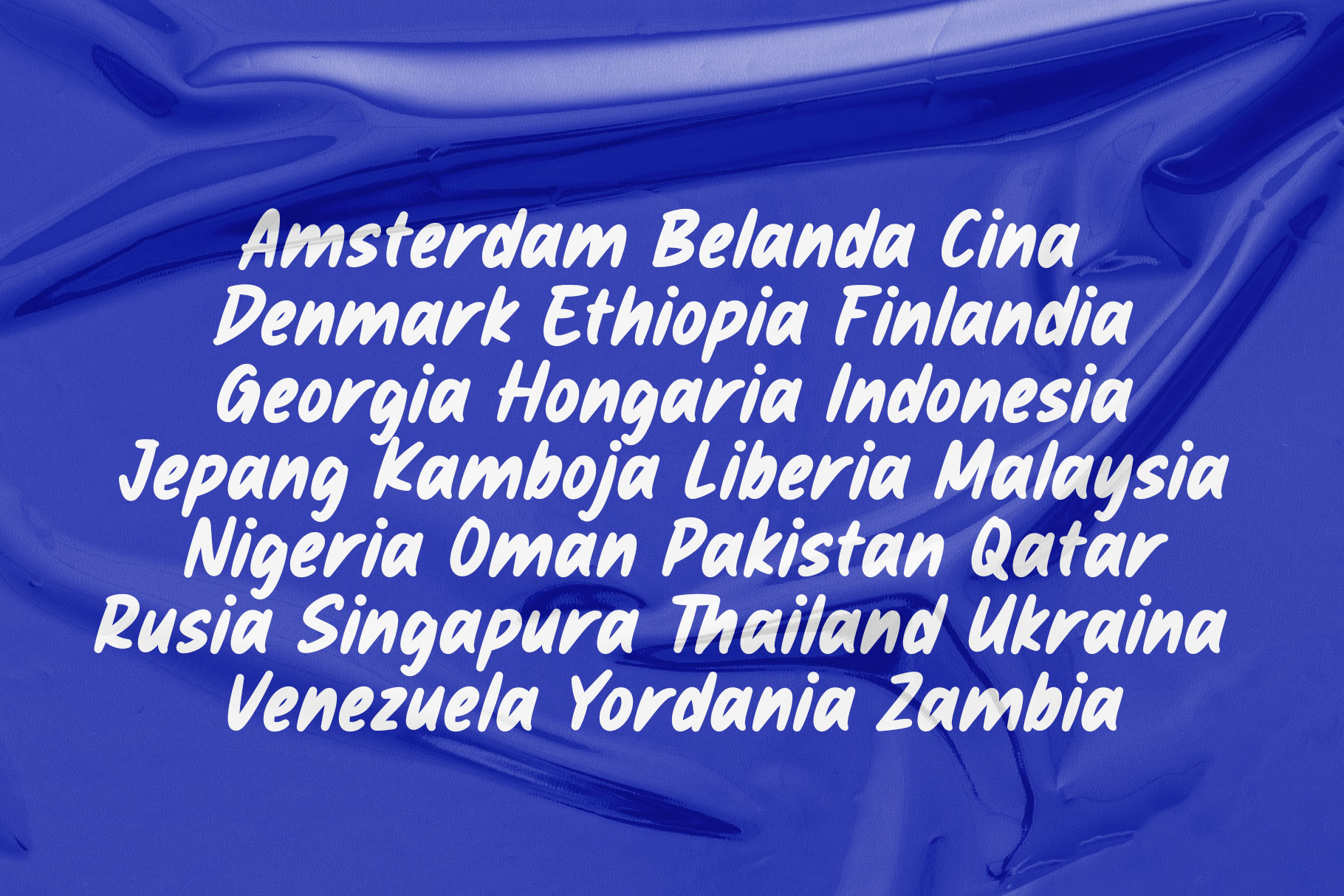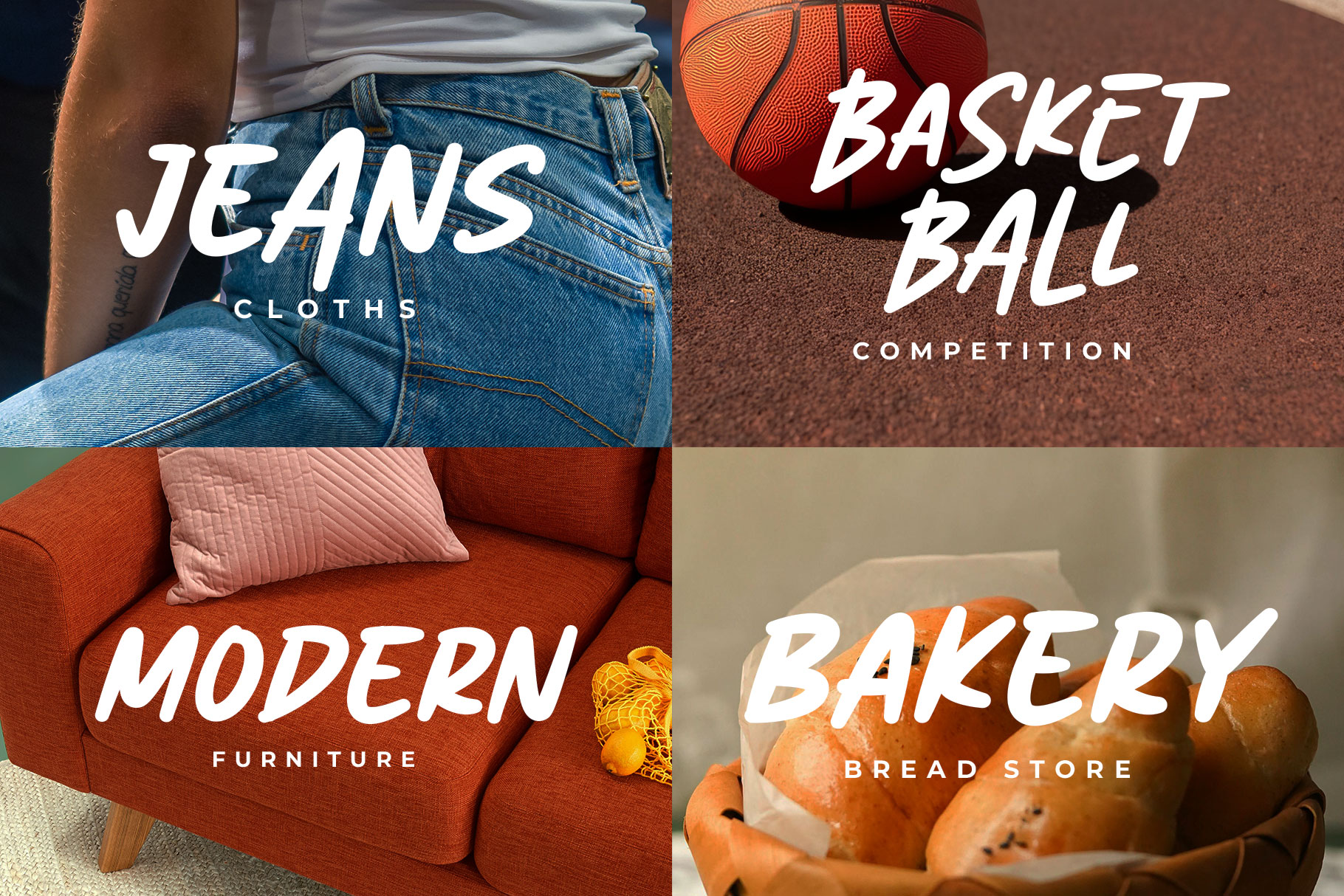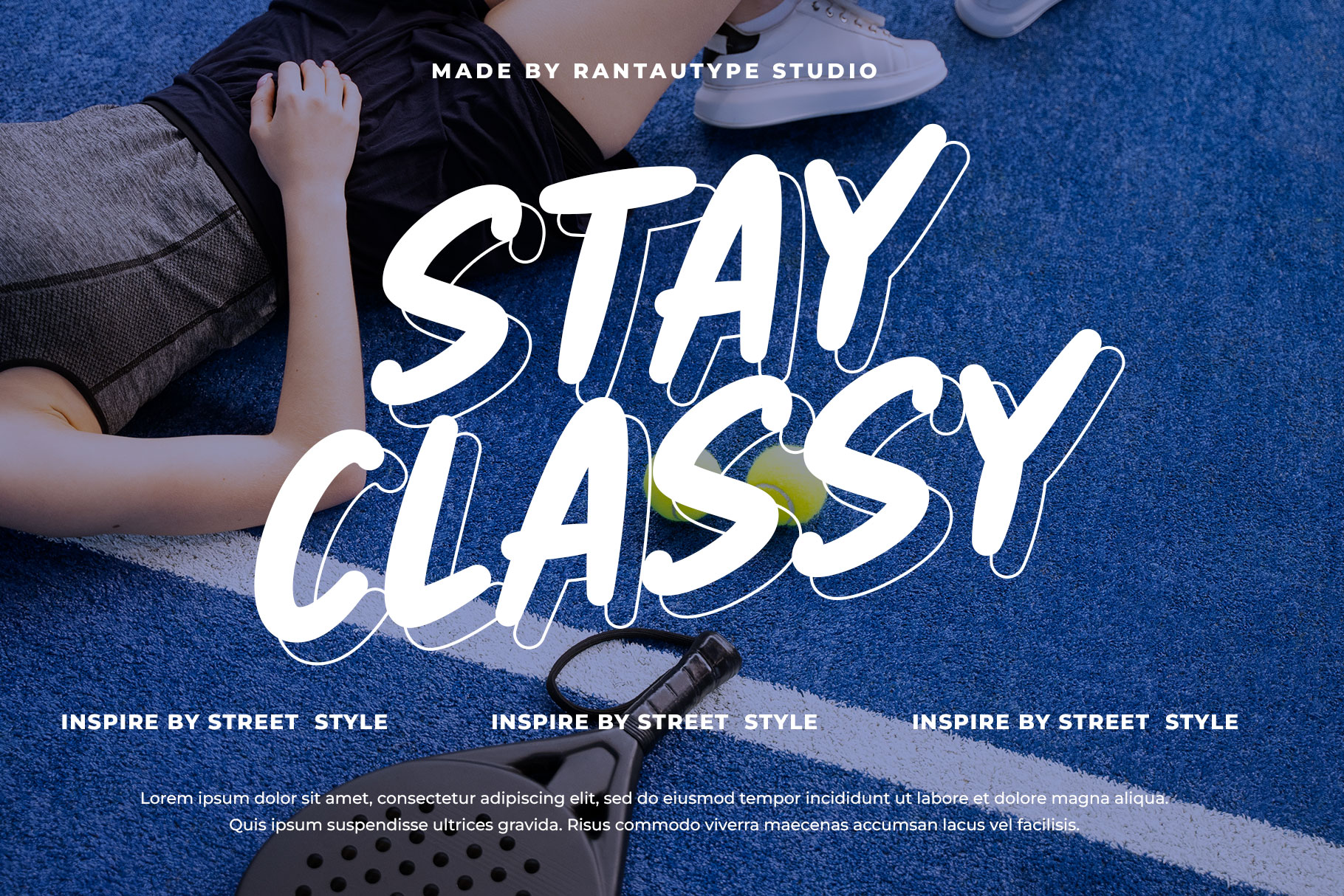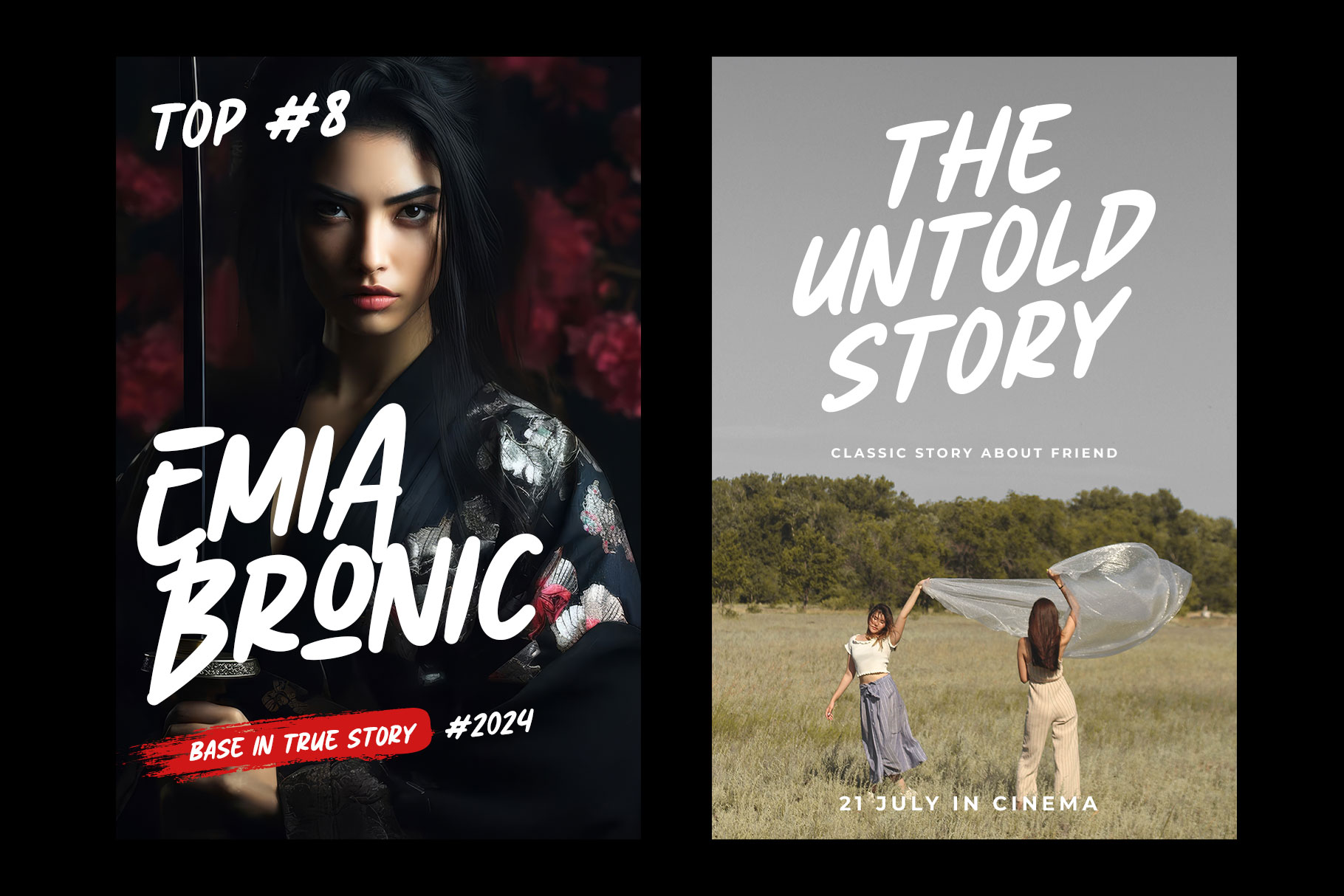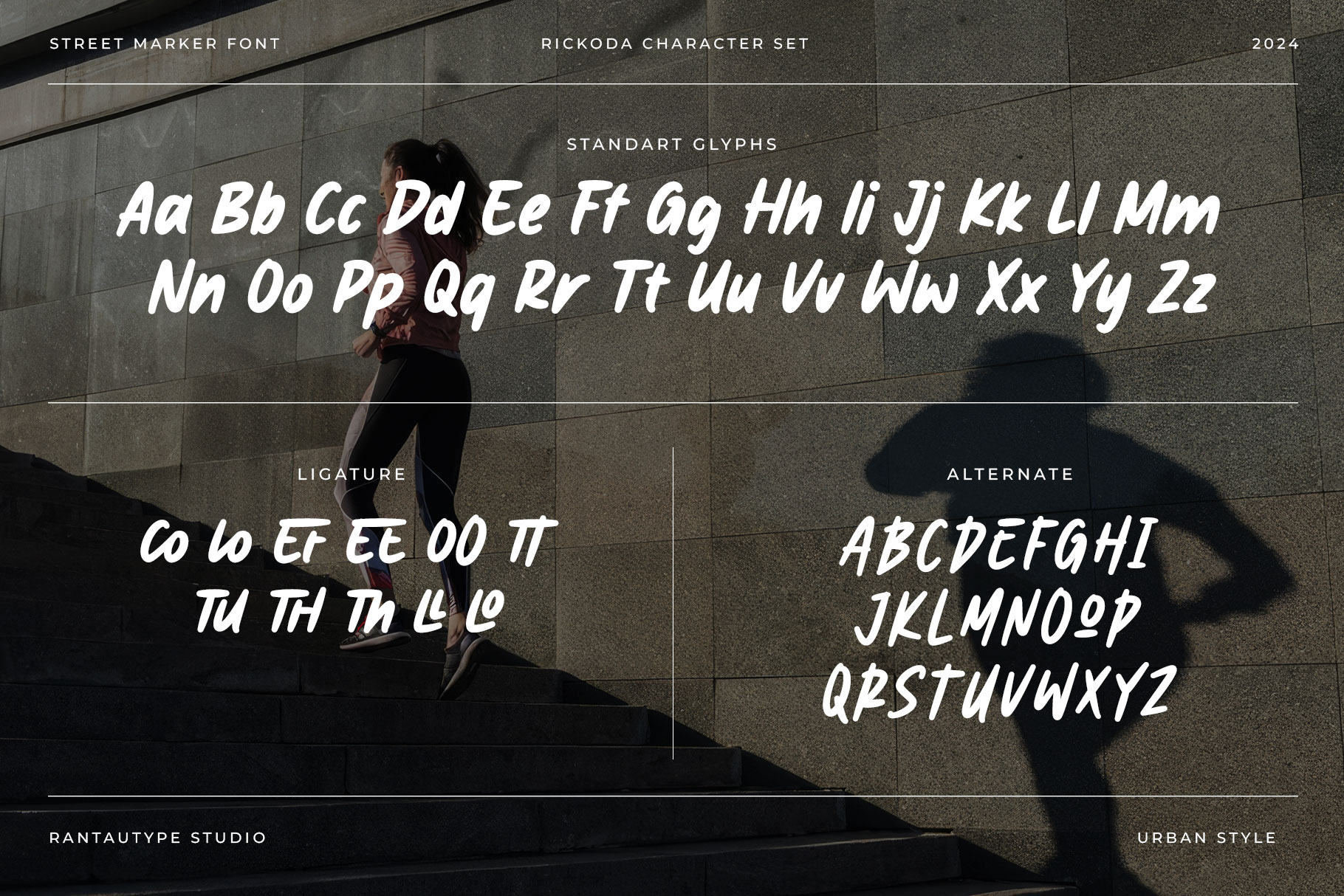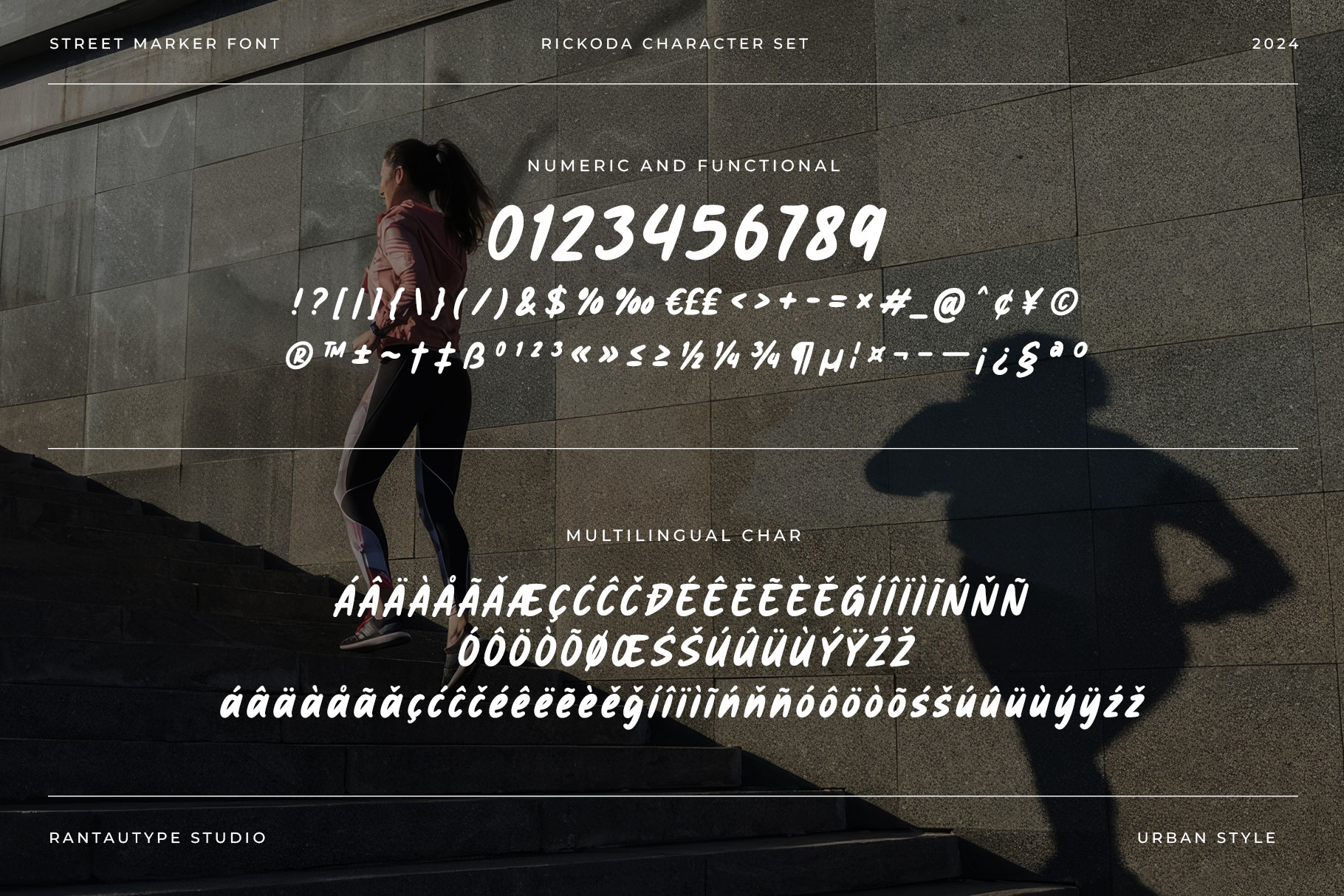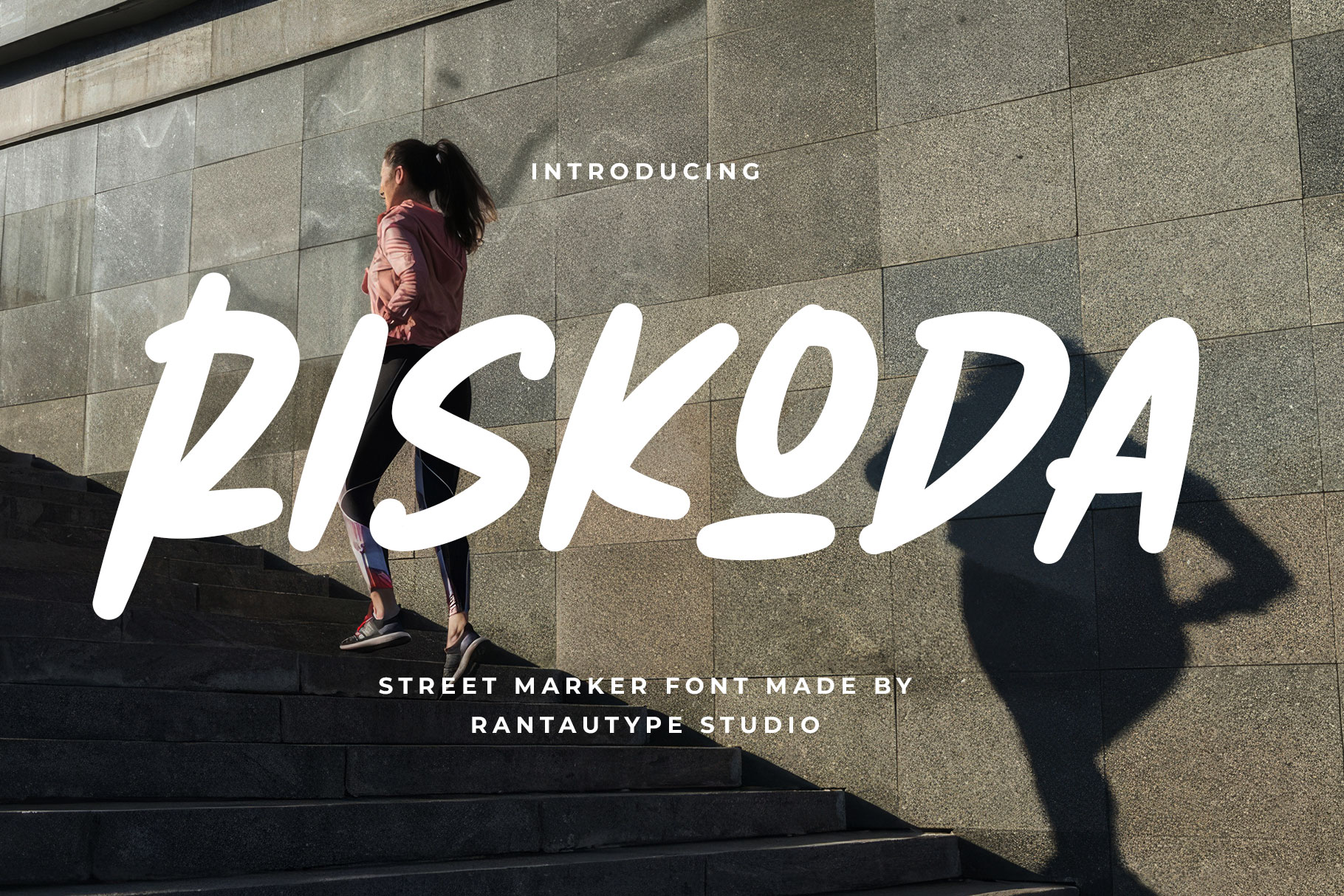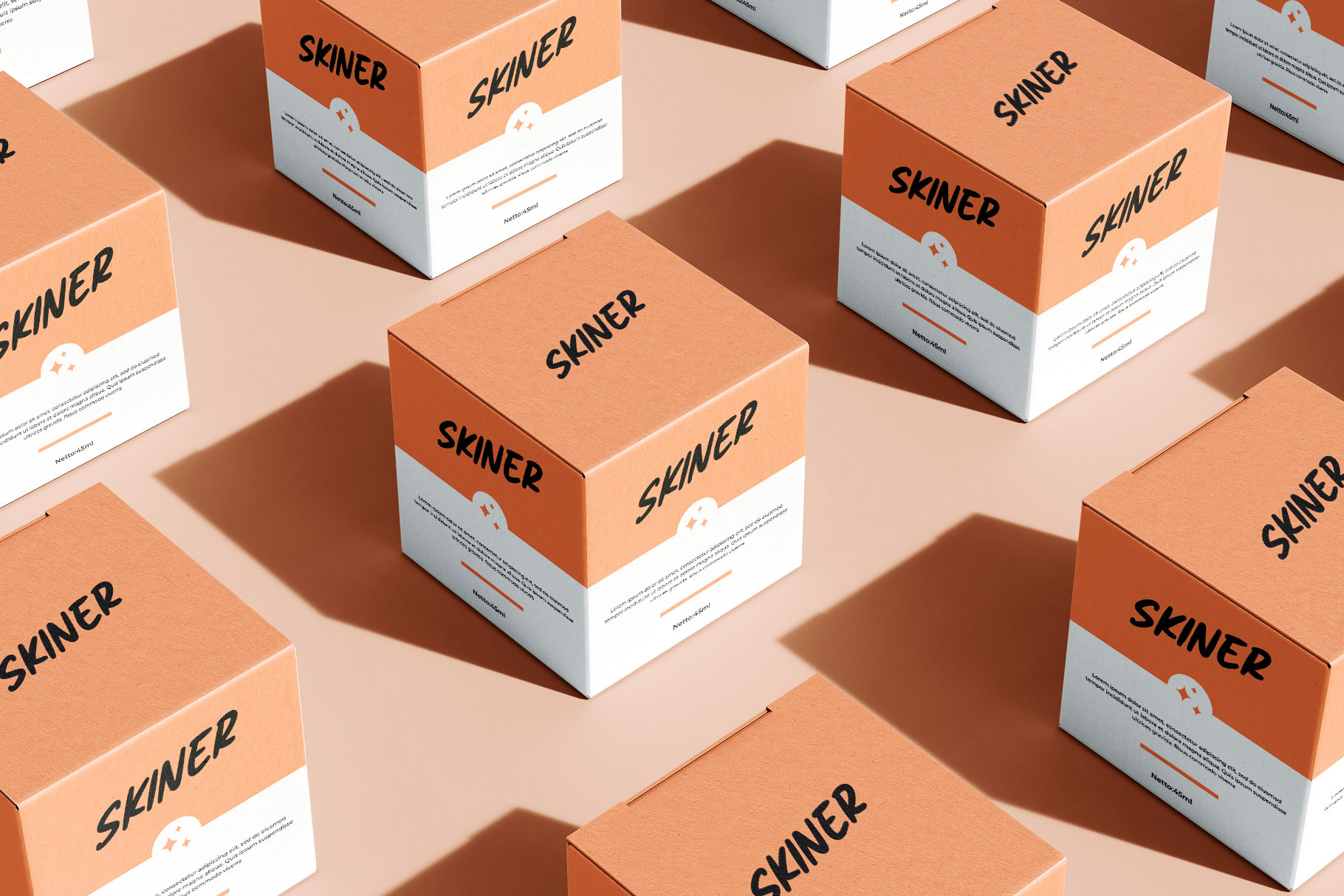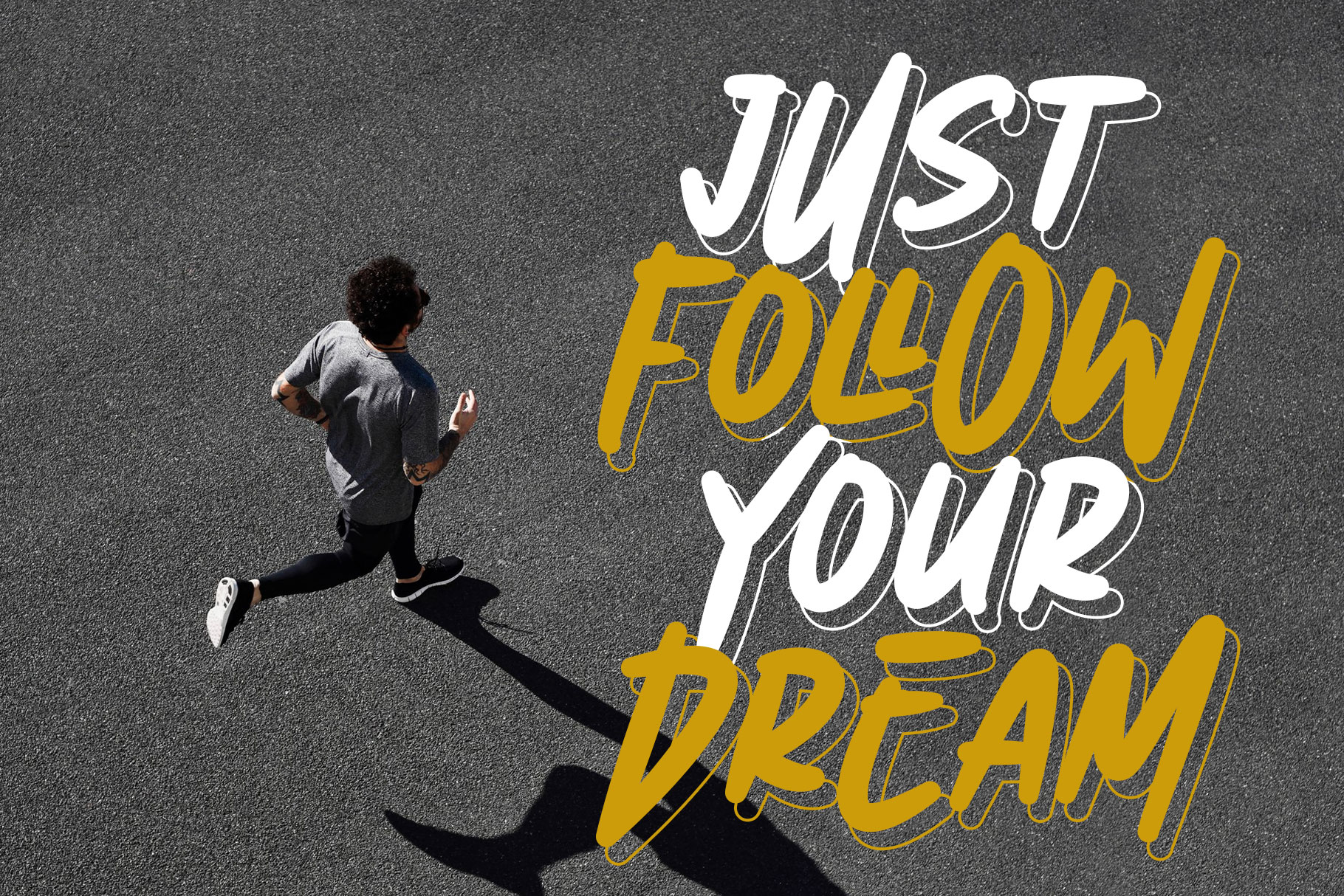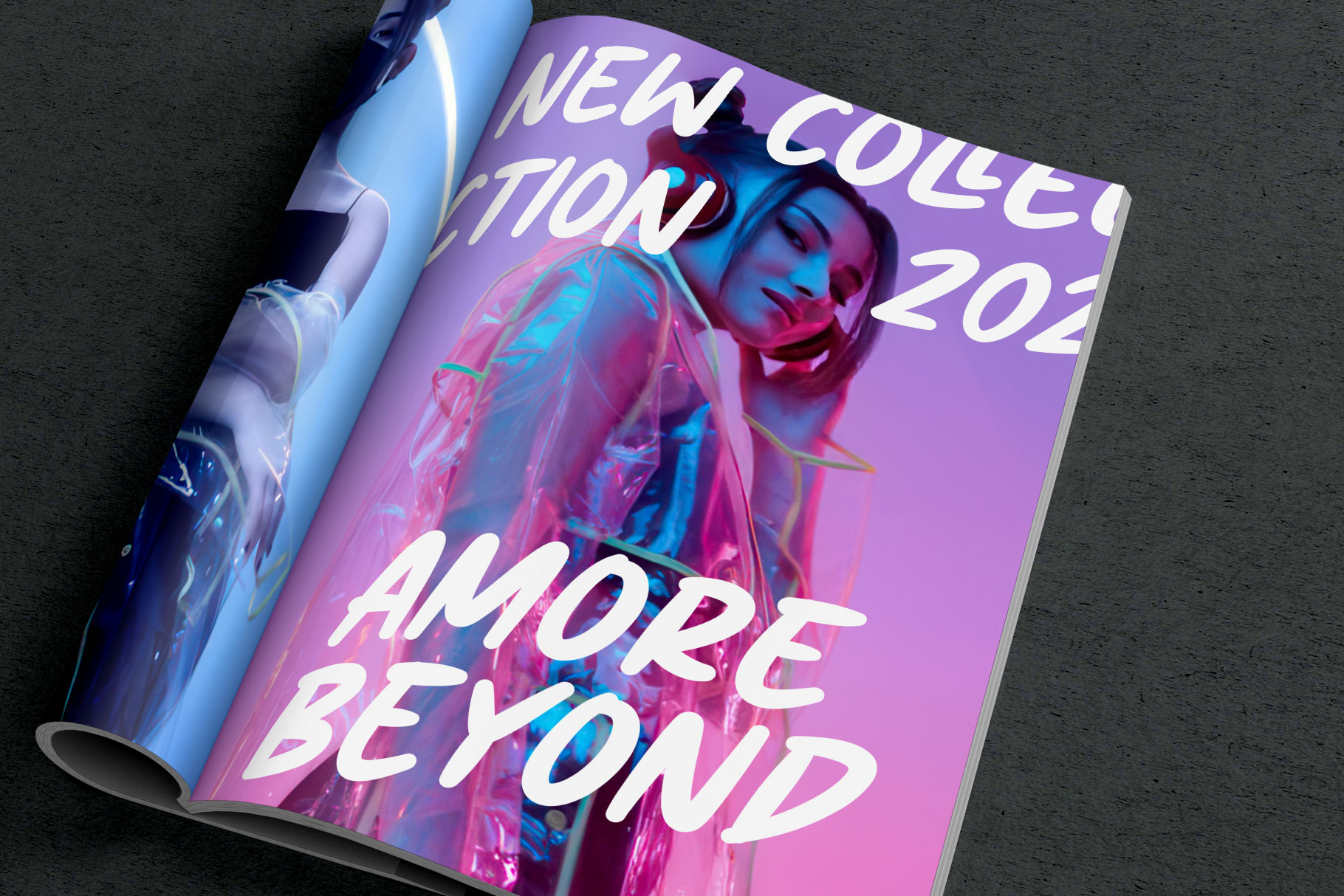
Riskoda Street Marker Font
Riskoda is street marker font with youthfulness and vitality look. Riskoda bring spirit of visual dengan with single marker stroke make it more attention in your design project.
Riskoda is a perfectly choice for any creative endeavor, lifestyle design such as logotype, advertisements, watermark on photography, branding project, display and magazine, invitation, corporate brand, product design, label, business project and other project with street taste.